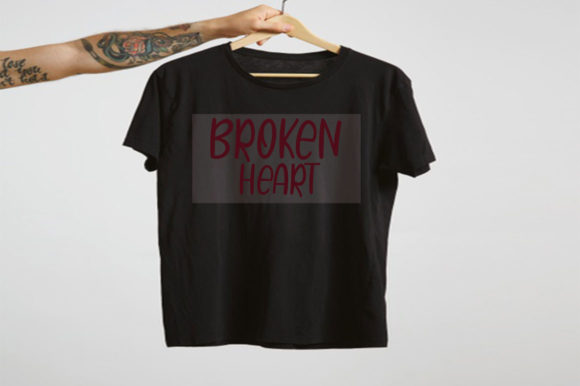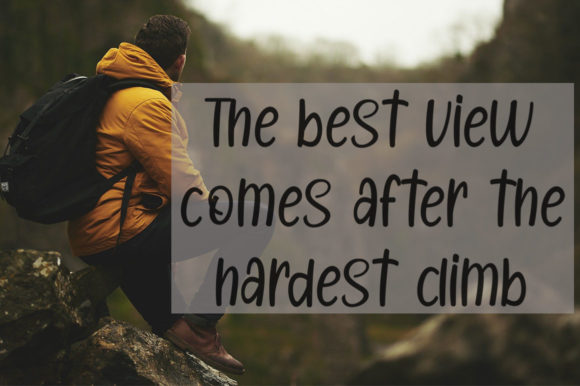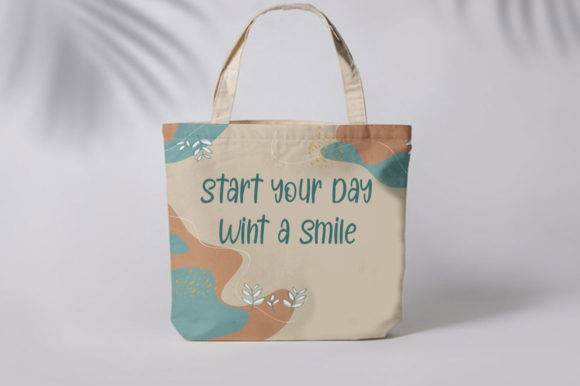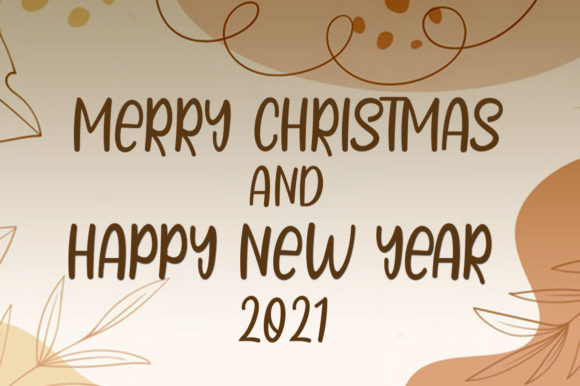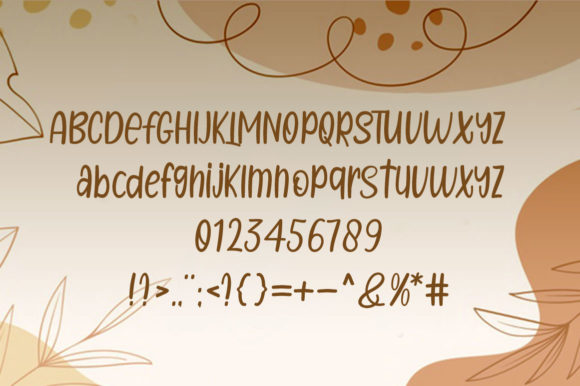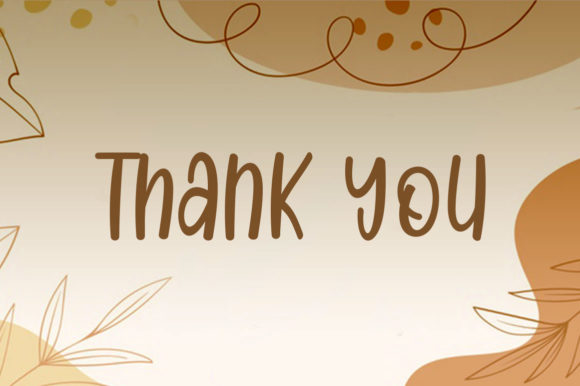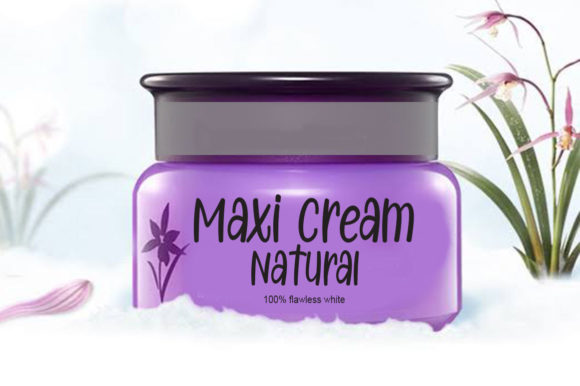
Broken Heart Font
About Broken Heart Font
Broken Heart is a cool, friendly, and informal handwritten font, that can be used for all chalkboard quotes or teaching material! Its authentic look and feel will add a personal and realistic feel to each of your designs.